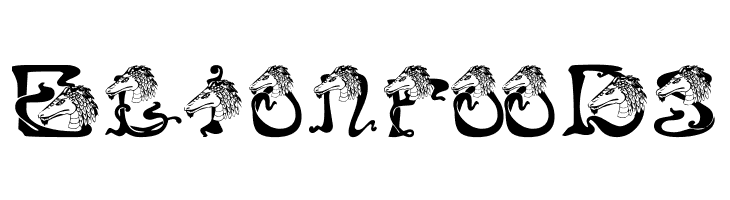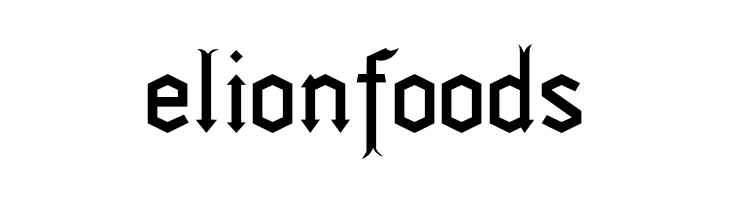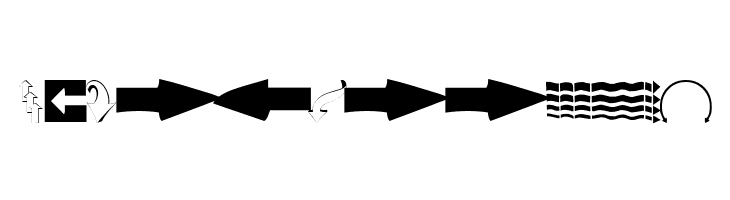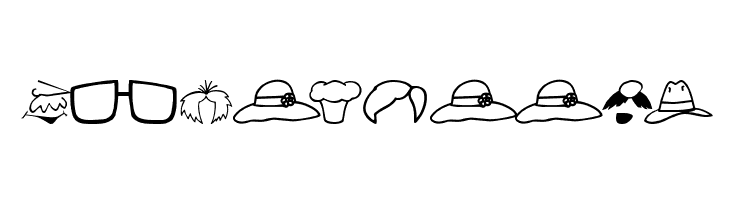
A bold, angular font with sharp, arrowhead-like serifs.
A diverse collection of uniquely styled arrows for versatile design use.
A whimsical, modular font for assembling cartoon faces.
A playful, cow-themed font with cartoonish, bold characters.
A decorative font with dragon motifs integrated into each character.
A music notation font for creating sheet music and musical scores.
Ultra-light, semi-condensed geometric sans-serif with minimal, modern design.
A playful and decorative font designed with matchstick-inspired characters.
A decorative dingbat font featuring illustrated woman faces in multiple styles.
A playful, industrial-themed font where each character is a uniquely designed screw.